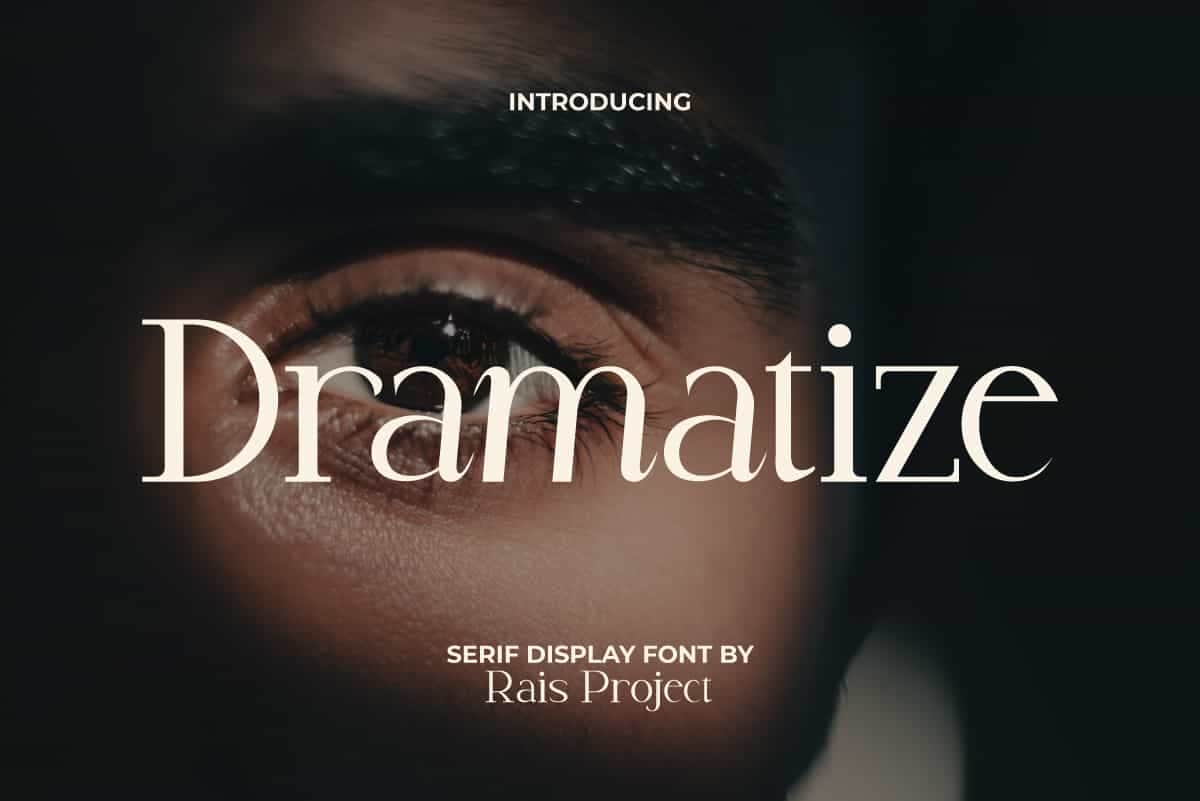
Dramatize Font
Dramatize Font is a beautiful aesthetic modern serif display font, made perfectly by RaisProject. You can use this awesome font for variety designs you created. Use this font right away and look how lovely it is!!
Dramatize Font is a beautiful aesthetic modern serif display font. This font can give the impression of a film with a dramatic title to attract attention. It will work good in many designs, such as brand image, custom design, invitation, label, menu, poster, product packaging, quote, signage, stationery, web, and more!
Dramatize Font includes a full set of Uppercase and Lowercase Letters, Numerals, and large range of Punctuation, and Alternate. This beautiful font will be suitable for various industries, such as advertising, beauty product, cafe, event or festival, fashion, photography, printing, publishing, restaurant, theater, etc.